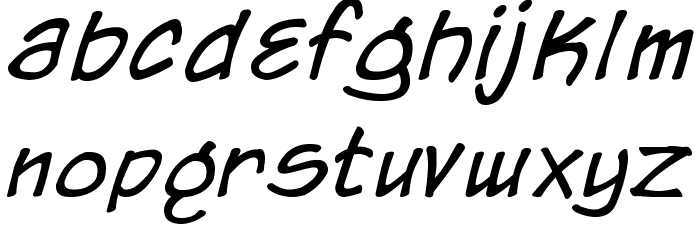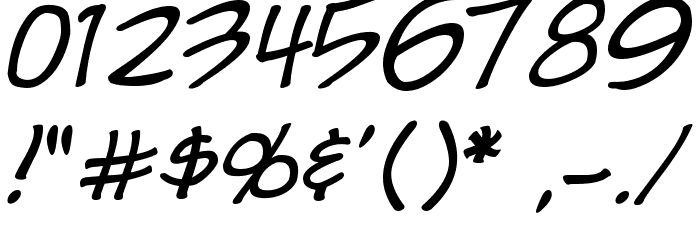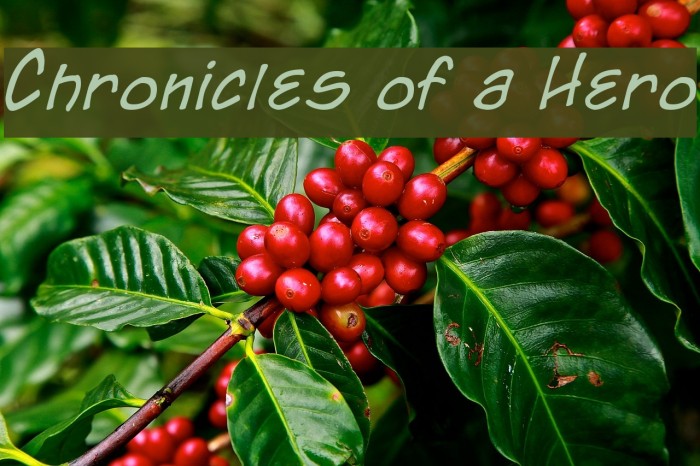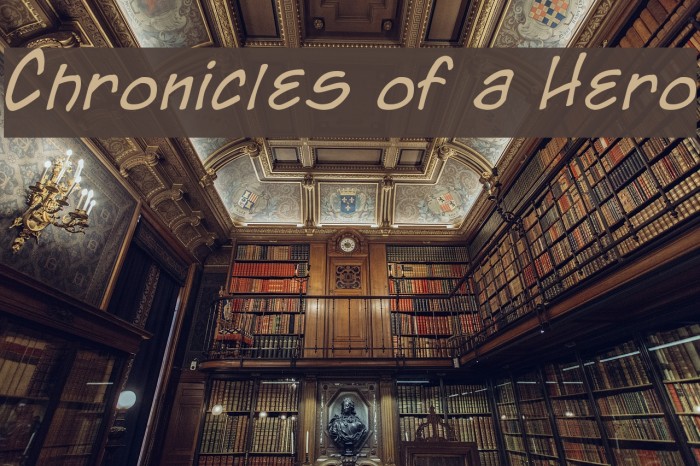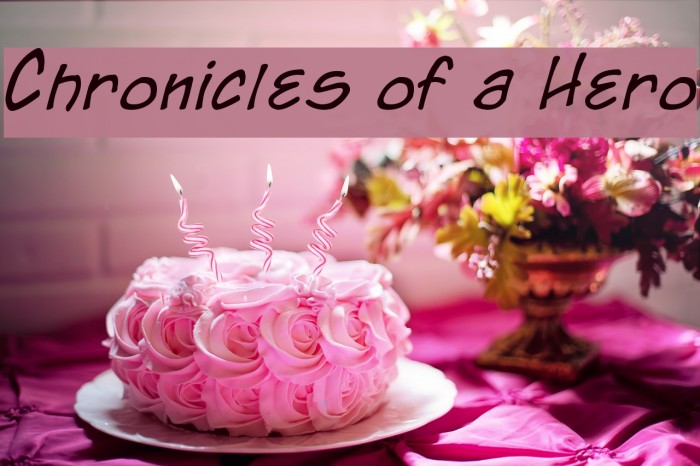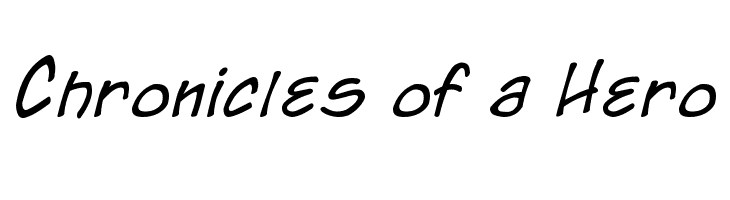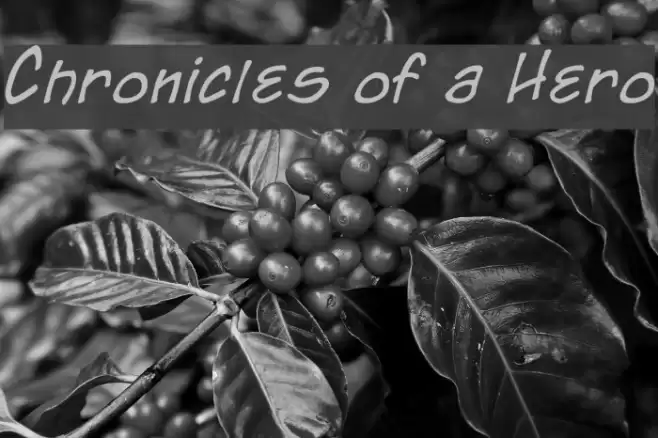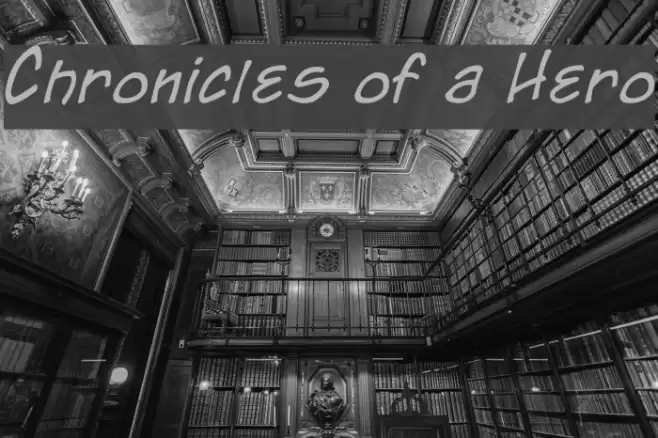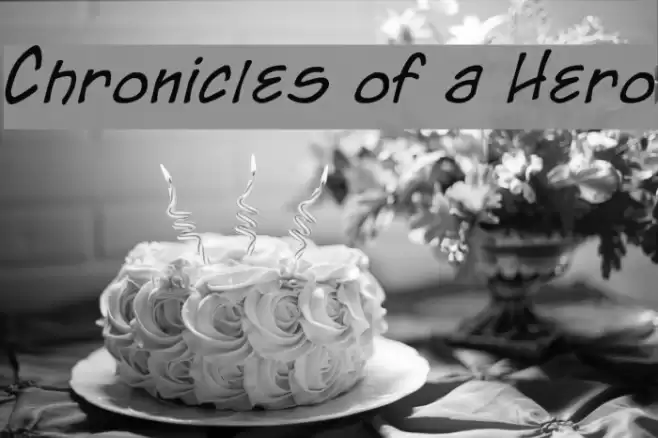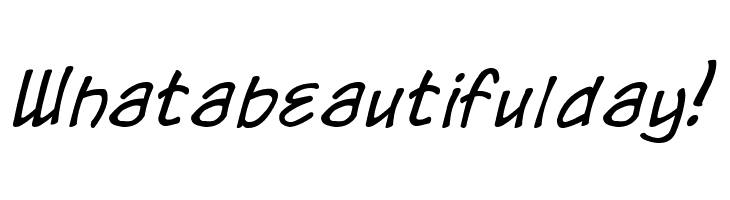
Chronicles of a Hero Font
This font features a dynamic and flowing script style, characterized by its smooth, cursive strokes and slightly slanted letters. The uppercase letters are bold and prominent, while the lowercase letters maintain a consistent flow, enhancing readability. The numerals are well-proportioned, matching the overall aesthetic of the alphabet. Special characters are thoughtfully designed to complement the script style, adding versatility to the font. The overall appearance is casual yet elegant, making it suitable for a variety of creative applications.
A dynamic, flowing script font with smooth, cursive strokes.
- Proposed Projects: Ideal for invitations, greeting cards, personal branding, and creative projects that require a touch of elegance and personality.
- Overall Style: Casual, Elegant
- Use Case: Logos, Invitations, Greeting Cards